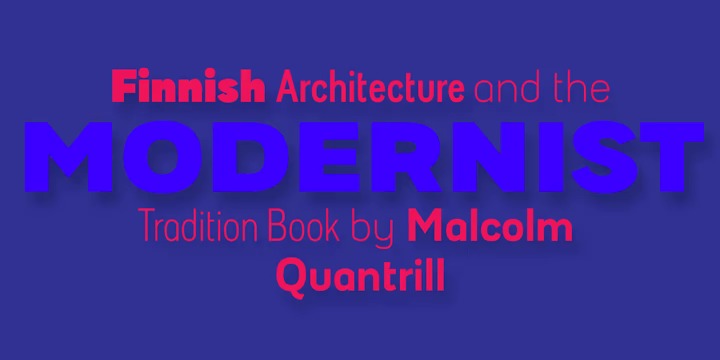
TA Fabricans Font
TA Fabricans Sans Serif Font
This is a rational sans typeface designed with a large X-height to provide clarity at both text and display sizes. The font also supports the Hebrew alphabet. The Display version comes only in the Latin alphabet.
TA Fabricans works great for branding, magazines, headers, logos, TV, UI, web, badge, packaging, headlines, posters, t-shirt/apparel etc. TA Fabricans offers you options to explore a whole host of applications and gives a real modern feel to any project.